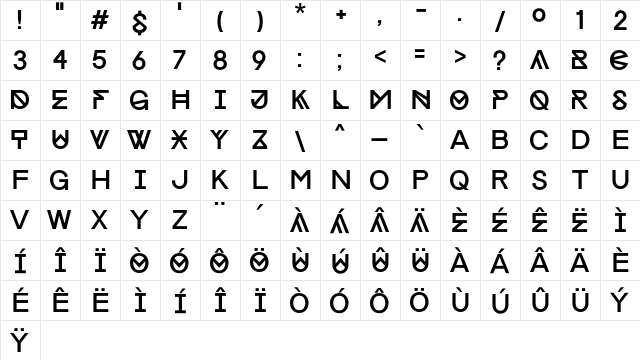
Progress Regular
Design Context for Progress Typeface
Progress takes a measured approach to typography — its balanced proportions and neutral character make it a reliable workhorse for both digital and print work.